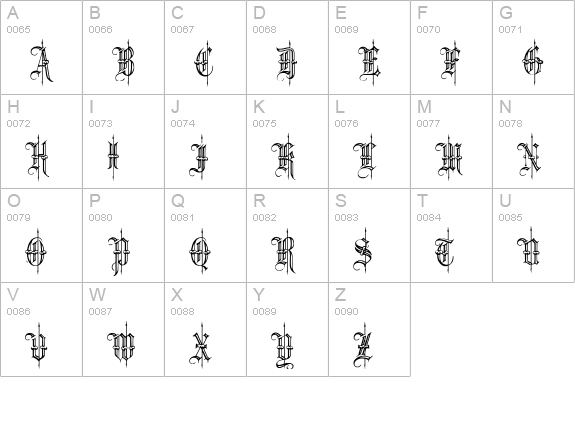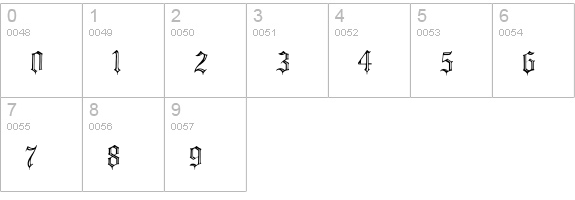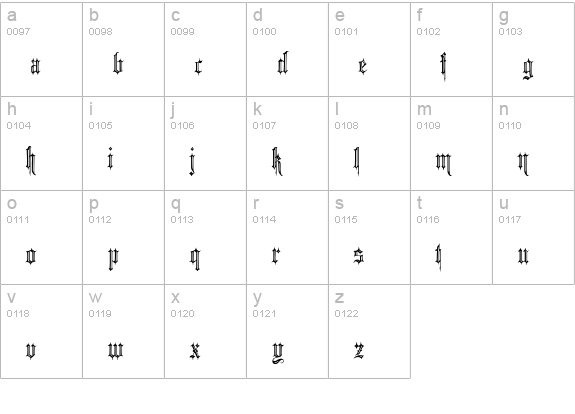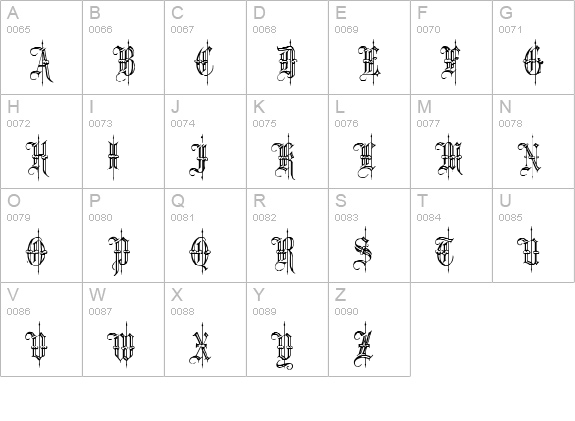
Minster6 Font Details
Minster6 is a stunning and versatile font that combines elegance with a modern touch. Its sleek and sophisticated design makes it perfect for a wide range of projects, from branding to packaging to social media graphics. The clean lines and balanced proportions of Minster6 give it a timeless appeal that will elevate any design it is used in. What makes Minster6 even more appealing is that it is completely free to download. Yes, you read that right - this gorgeous font is available for free at FontsMarket.com. Whether you're a designer working on a client project or a hobbyist looking to add a touch of style to your personal creations, Minster6 is the perfect choice. Download it now and let your creativity soar with this beautiful and free font.